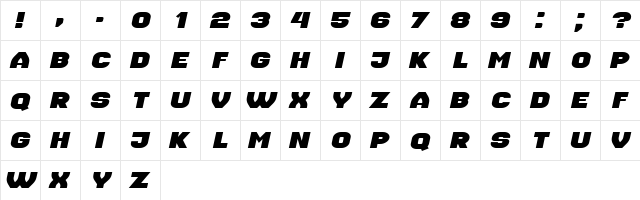
Housebreak Extended Italic
Design Context for Housebreak Typeface
Housebreak is a composed and adaptable typeface that performs quietly and consistently across a wide range of design contexts. The dynamic lean of this cut emphasises speed and emphasis in any layout.
Pro Tip: Use Housebreak for emphasis, pull quotes, and subheadings where its slanted energy can add rhythm to the layout.